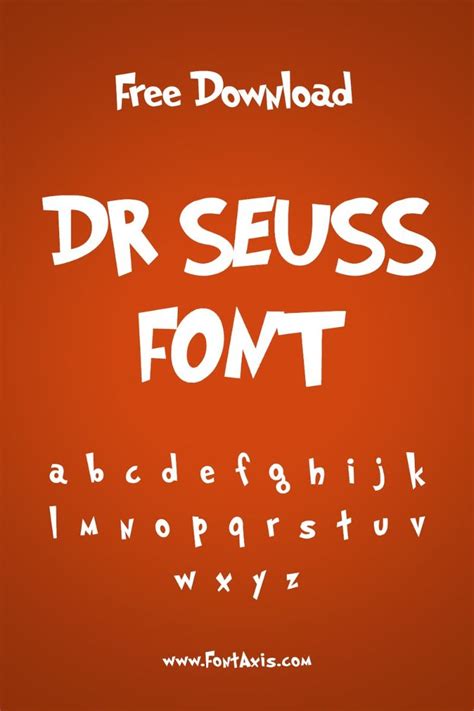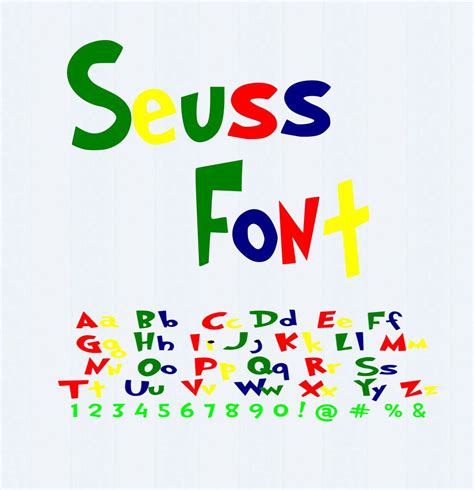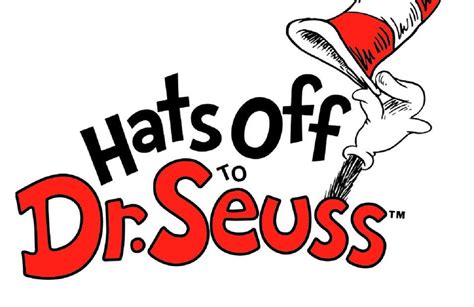
DR SEUSS FONT
Welcome to the whimsical world of Dr. Seuss font, a unique and playful typography style that has captured the hearts of many. This introduction will explore the fascinating journey of this iconic font, its creation, and its impact on the design world.
The story of Dr. Seuss font begins with the legendary author and cartoonist, Theodore Seuss Geisel, better known as Dr. Seuss. His imaginative and whimsical storytelling has left an indelible mark on children's literature. In the 1950s, Dr. Seuss collaborated with the renowned type designer, Louis O. Elbel, to create a font that would bring his vibrant and quirky characters to life on the page.
The result was a handwritten, playful font with a distinct personality. It featured curved lines, whimsical swirls, and a touch of whimsy, making it instantly recognizable. This font was not just a typographic creation; it was an artistic expression that embodied the spirit of Dr. Seuss's creations.
One of the key benefits of Dr. Seuss font is its ability to evoke a sense of joy and imagination. With its playful curves and unique letterforms, it adds a touch of whimsy to any design, making it perfect for children's books, branding, and creative projects. Its versatility allows designers to create engaging and memorable visuals, capturing the attention of a wide audience.
Over the years, this font has become a beloved classic, widely used in various media, from children's books to advertising. Its enduring popularity is a testament to the timeless appeal of Dr. Seuss's work and the unique charm of this font.